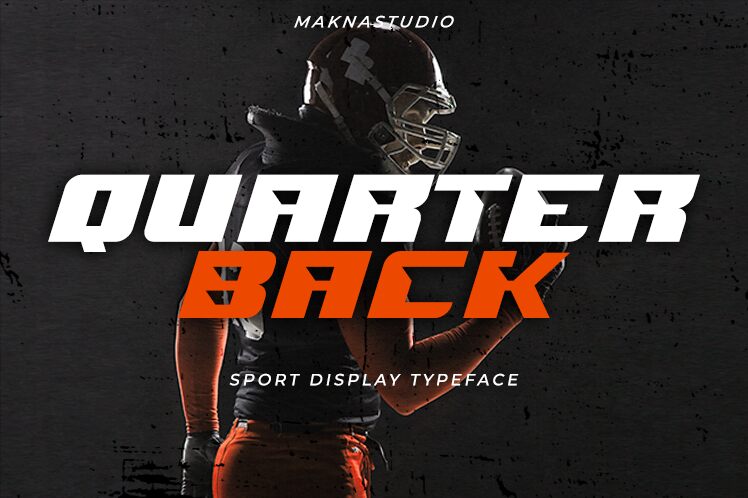
QUARTERBACK
Quarterback by MaknaStudio is a bold, expanded display font that exudes a captivating techno-inspired aesthetic. With its striking letterforms and dynamic presence, this font commands attention and evokes a sense of futuristic sophistication. The geometric shapes and angular edges lend the design a sleek, high-tech feel, making it an impactful choice for a variety of visually-driven applications.
Quarterback's versatility shines through its ability to seamlessly integrate into contemporary branding, packaging, and digital design projects. Its bold, expanded structure ensures maximum legibility and impact, making it an excellent selection for attention-grabbing headlines, eye-catching logos, and dynamic typography-driven layouts. Quarterback's distinct personality effortlessly lends itself to projects requiring a modern, technology-inspired aesthetic, from sleek product launches to immersive user interfaces.